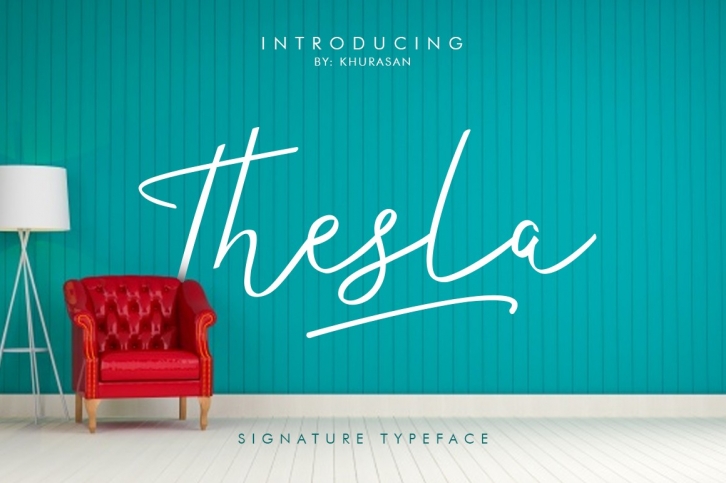
Thesla Script is a trendy and unique font with an authentic style. It was designed by khurasan and it's a great choice for creative people who need such a font. It was released on June 14, 2017 and the file size is 18.37 MB. Thesla Script will add an organic vibe to any design idea!